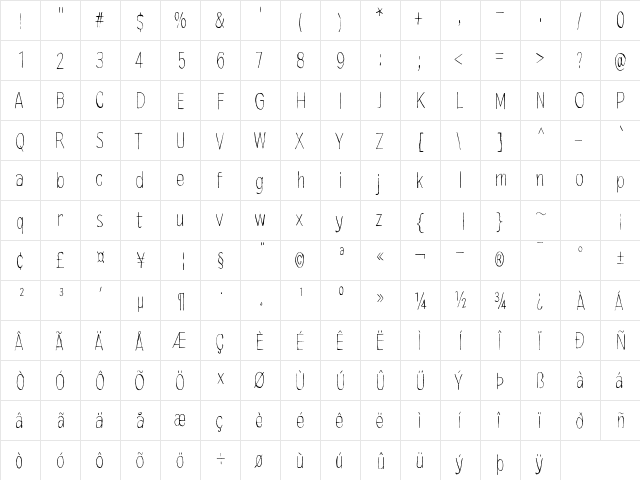
Mindmonkey Regular
| Designer | junkohanhero |
Design Context for Mindmonkey Typeface
Mindmonkey is a composed and adaptable typeface that performs quietly and consistently across a wide range of design contexts.